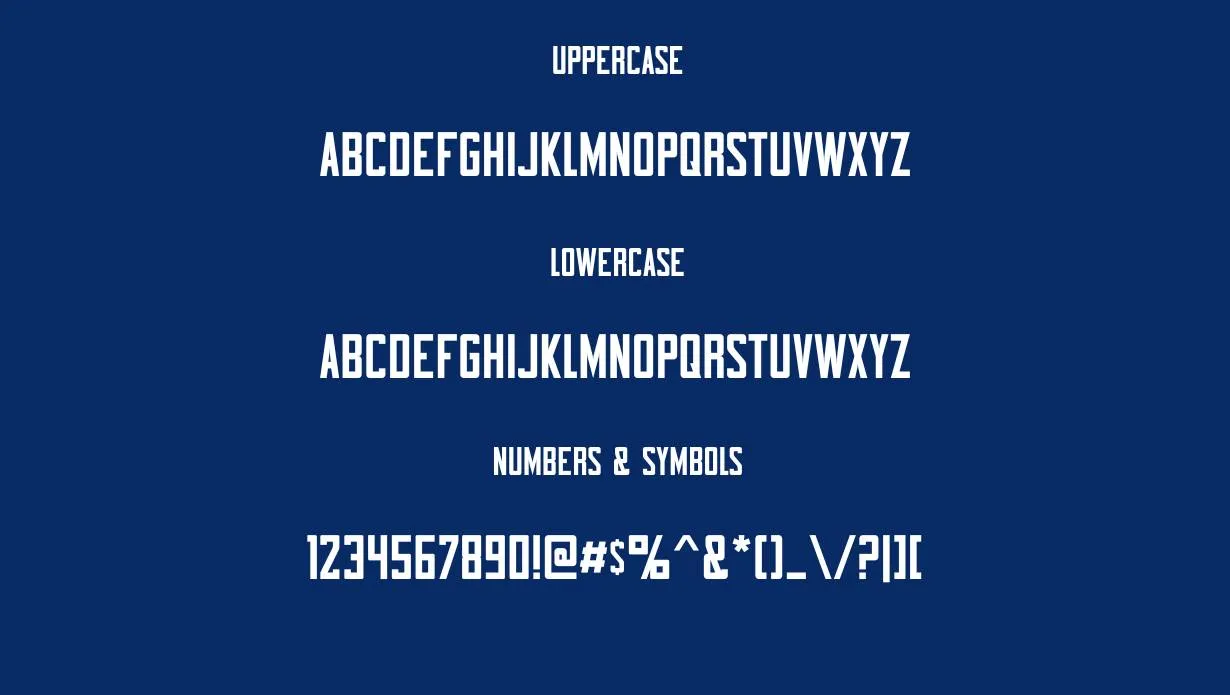
Step into the realm of Boot Camp Font, where letters march in precise alignment. It feels like composing with military accuracy and power. The characters exude a strong and tough look, bestowing your text with a straightforward and authoritative aura.
If you want your words to stand tall and convey a sense of authority, Boot Camp Font is the perfect choice. It’s like turning your writing into a well-drilled battalion, ready to make an impact.
| Name | Boot Camp Font |
| Designer | Marcelo Melo Reis |